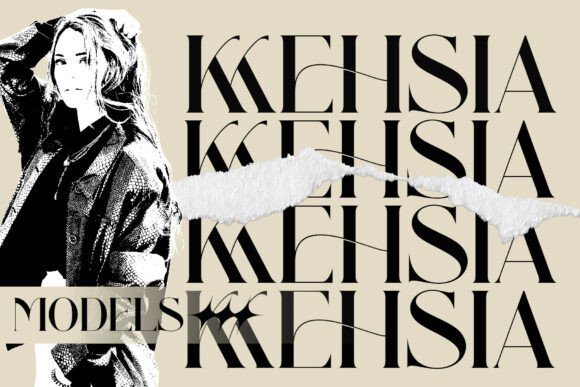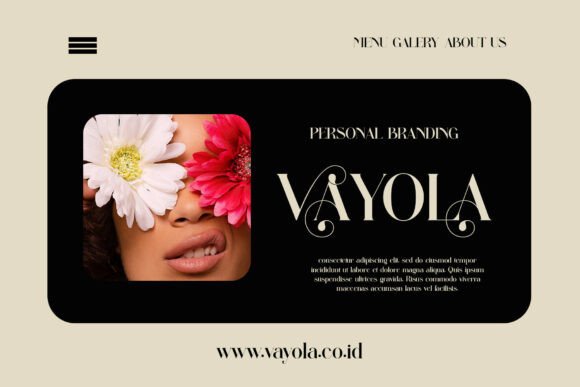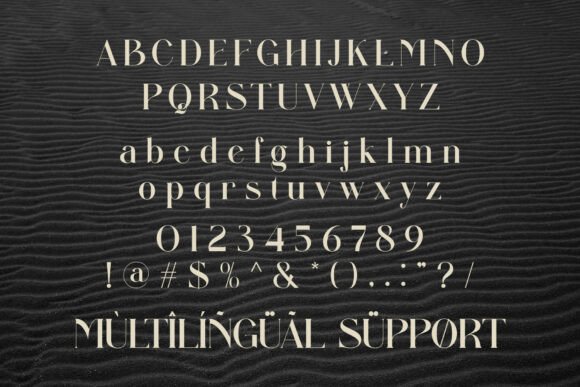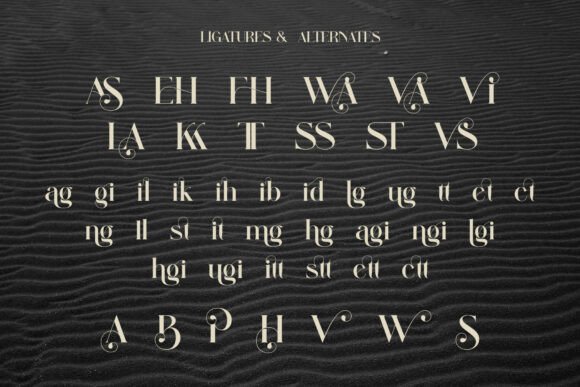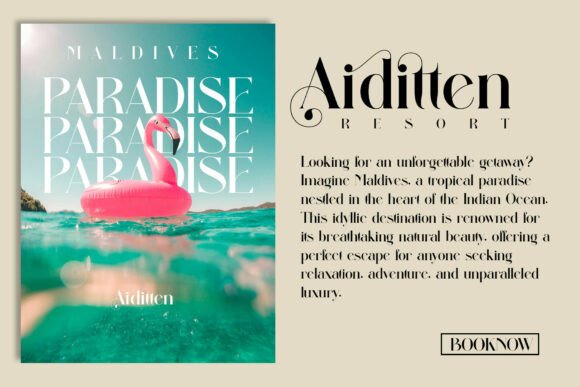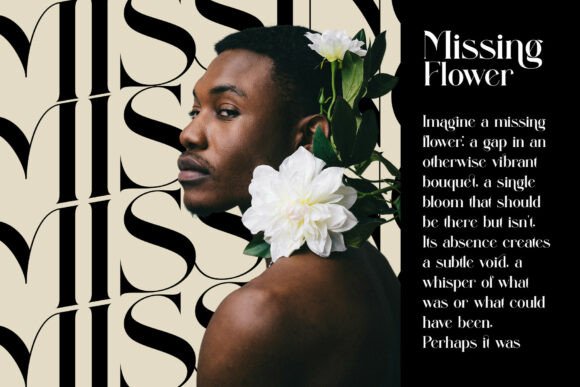
Introducing Aiditten Font: Elevate Your Designs with Elegance and Sophistication
In the world of typography, a font can make all the difference in the success of a design project. Whether you’re a seasoned designer or a crafty enthusiast, finding the right typeface can be a daunting task. That’s where Aiditten Font comes in – an elegant modern typeface designed to bring sophistication, clarity, and contemporary charm to your creations. With its refined letterforms and graceful curves, Aiditten is the perfect choice for upscale branding, wedding invitations, luxury packaging, high-end editorials, and stylish logo designs.
The Perfect Balance of Timeless Elegance and Modern Minimalism
Aiditten Font strikes the perfect balance between timeless elegance and modern minimalism, making it an ideal choice for designers seeking beauty and functionality in one cohesive typeface. Its sleek and clean design with a contemporary touch ensures that your designs stand out from the crowd while maintaining a level of sophistication that’s hard to achieve. The distinctive letterforms add a strong personality to your designs, making them perfect for headlines, logos, and luxury branding.
Key Features of Aiditten Font
- Sleek and clean design with a contemporary touch: Aiditten Font boasts a modern design that’s both stylish and versatile. Its clean lines and minimalist approach make it perfect for a wide range of design applications.
- Distinctive letterforms that add strong personality: Each letterform in Aiditten Font has been carefully crafted to add a unique personality to your designs. Whether you’re creating a logo, headline, or luxury brand identity, Aiditten’s distinctive letterforms are sure to make a lasting impression.
- Perfect for headlines, logos, and luxury branding: With its elegant and sophisticated design, Aiditten Font is perfect for high-end editorials, wedding invitations, luxury packaging, and stylish logo designs. Its versatility and beauty make it an excellent choice for designers seeking a typeface that can elevate their creations.
Why Choose Aiditten Font?
So, why choose Aiditten Font over other typefaces? Here are just a few reasons why designers and crafters love Aiditten:
- Unique and distinctive design: Aiditten Font’s unique design ensures that your creations stand out from the crowd. Its elegant and sophisticated style is perfect for designers seeking a typeface that can add a touch of luxury to their designs.
- Highly versatile: Aiditten Font is highly versatile and can be used for a wide range of design applications, from upscale branding and luxury packaging to wedding invitations and high-end editorials.
- Easy to read and understand: Despite its elegant and sophisticated design, Aiditten Font is easy to read and understand, making it perfect for body text and headlines.
How to Use Aiditten Font in Your Designs
Using Aiditten Font in your designs is easy. Here are a few tips to get you started:
- Pair it with other fonts: Aiditten Font pairs perfectly with other fonts, especially those with a similar elegant and sophisticated style. Experiment with different font combinations to find the perfect pairing for your design.
- Use it for headlines and titles: Aiditten Font is perfect for headlines and titles, where its elegant and sophisticated design can really shine.
- Experiment with different colors and textures: Aiditten Font looks great in a variety of colors and textures. Experiment with different styles to find the perfect look for your design.
| Font Name | Aiditten Font |
| Author | Alfinart |
In conclusion, Aiditten Font is an elegant modern typeface that’s perfect for designers seeking sophistication, clarity, and contemporary charm. With its refined letterforms and graceful curves, Aiditten is ideal for upscale branding, wedding invitations, luxury packaging, high-end editorials, and stylish logo designs. Its sleek and clean design, distinctive letterforms, and versatility make it an excellent choice for designers seeking beauty and functionality in one cohesive typeface. So why wait? Try Aiditten Font today and elevate your designs to new heights!